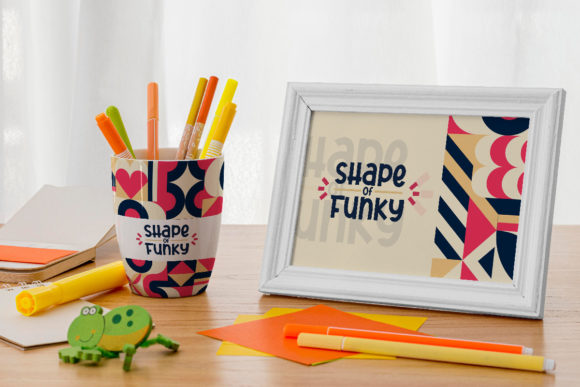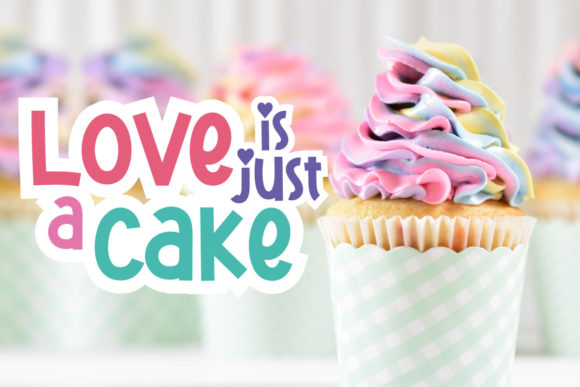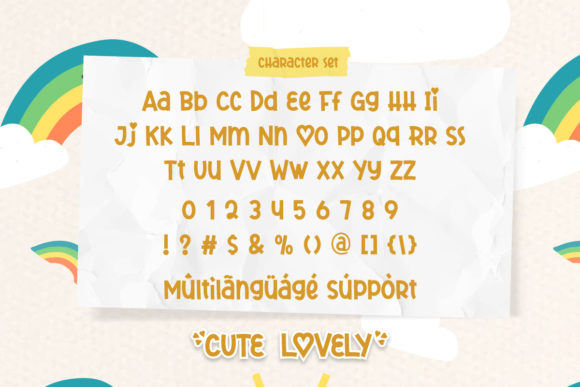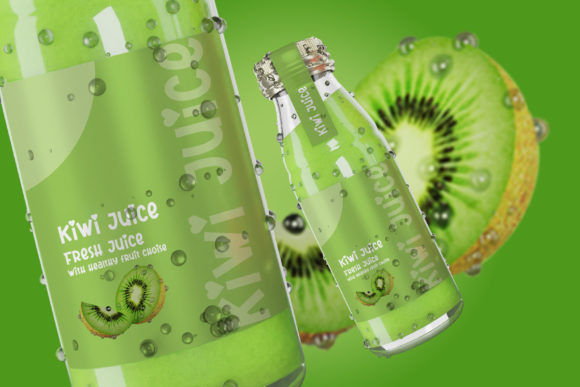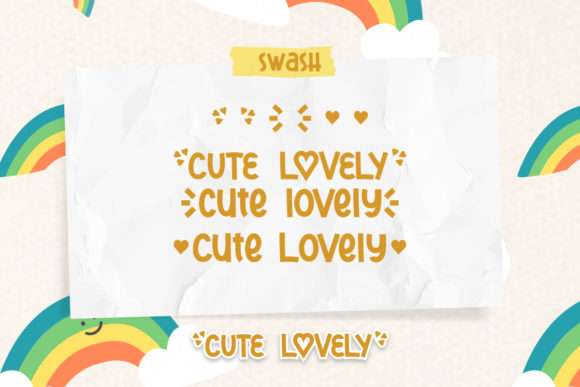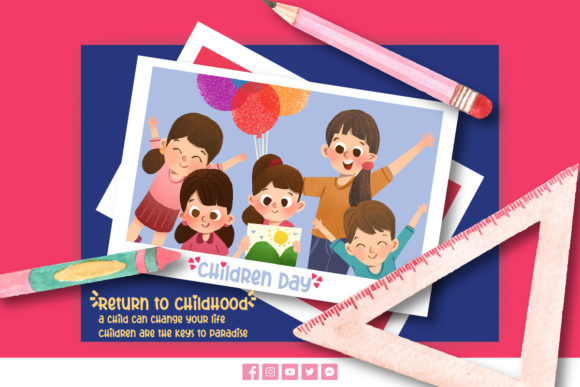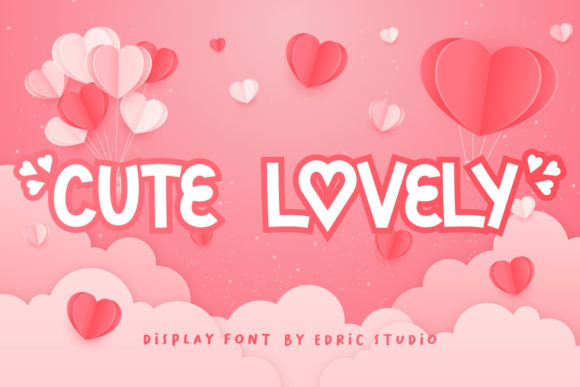
Cute Lovely Font: Add a Touch of Whimsy to Your Designs
In the world of design, fonts play a crucial role in conveying the tone and personality of a project. If you’re looking for a font that exudes cuteness, friendliness, and romance, look no further than Cute Lovely Font. This display font is carefully crafted with love to bring a natural and playful touch to your designs. In this article, we’ll explore the features and benefits of Cute Lovely Font, and how it can elevate your design game.
The Cuteness Factor
Cute Lovely Font is designed to bring a smile to your face. Its adorable shape is perfect for projects that require a cute and romantic vibe. Whether you’re working on a greeting card, invitation, or social media graphic, this font is sure to capture the hearts of your audience. The cute factor is not just limited to its appearance; the font’s playful and whimsical nature makes it perfect for designs that require a touch of personality.
Ease of Readability
One of the standout features of Cute Lovely Font is its ease of readability. Despite its playful nature, the font is clear and easy to read, making it perfect for body text and headings. This is especially important for digital designs, where readability is crucial for user experience. With Cute Lovely Font, you can ensure that your message is conveyed effectively, without sacrificing style.
Friendliness and Approachability
Cute Lovely Font conveys impeccable friendliness, making it perfect for designs that require a personal touch. The font’s warm and inviting nature makes it ideal for projects that aim to build a connection with the audience. Whether you’re designing a presentation, a craft project, or a digital graphic, Cute Lovely Font will help you create a design that feels approachable and welcoming.
Versatility and Creative Freedom
Cute Lovely Font is a versatile display font that can be used for a wide range of projects. From crafts and digital design to presentations and greeting card making, this font is perfect for any creative endeavor. Its playful nature makes it ideal for experimenting with different design styles and techniques. With Cute Lovely Font, you can add a touch of whimsy to your designs, and bring your creative vision to life.
Practical Applications
So, how can you use Cute Lovely Font in your designs? Here are a few ideas to get you started:
- Crafts: Use Cute Lovely Font to add a personal touch to your craft projects, such as scrapbooking, journaling, and card making.
- Digital Design: Add a playful touch to your social media graphics, blog posts, and website designs with Cute Lovely Font.
- Presentations: Use Cute Lovely Font to create engaging and interactive presentations that capture your audience’s attention.
- Greeting Card Making: Create beautiful and heartfelt greeting cards with Cute Lovely Font.
Why Cute Lovely Font Stands Out
In a world of fonts, what makes Cute Lovely Font stand out? Here are a few reasons why this font is a cut above the rest:
- Unique Design: Cute Lovely Font has a one-of-a-kind design that is both playful and elegant.
- High Readability: The font’s clear and easy-to-read design makes it perfect for body text and headings.
- Emotional Connection: Cute Lovely Font conveys a sense of friendliness and approachability, making it perfect for designs that require a personal touch.
Cute Lovely Font is a delightful display font that is sure to bring a touch of whimsy to your designs. With its cute shape, ease of readability, and friendly nature, this font is perfect for projects that require a playful and romantic vibe. Whether you’re a designer, crafter, or digital artist, Cute Lovely Font is a great addition to your font library. So, why not give it a try? Download Cute Lovely Font today, and see how it can elevate your design game!